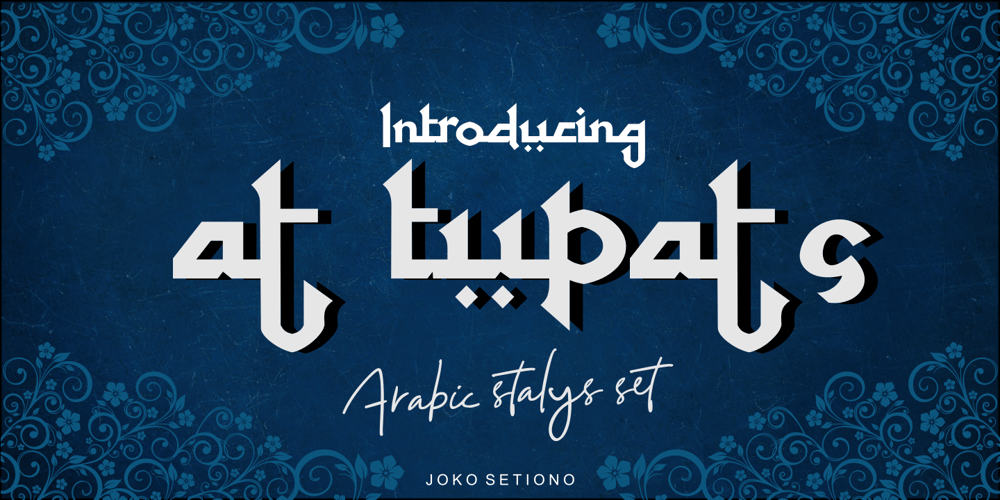
At Tupats Font Family was designed by Joko Setiono and published by Arttype7. At Tupats contains 1 styles and family package options. At Tupats is inspired by the name of a common food from Indonesia during Eid: ketupatfood. This font is in the Arabic style but for writing latin characters and words.The ligatures, stylistic sets, and contextual features of this font will make your writing similar to Arabic calligraphy.It is very suitable for writing in a Middle Eastern style and for use in restaurants, magazines, souvenirs, web, and many Ramadhan-themed projects.